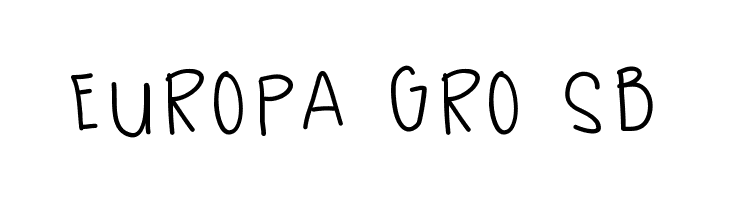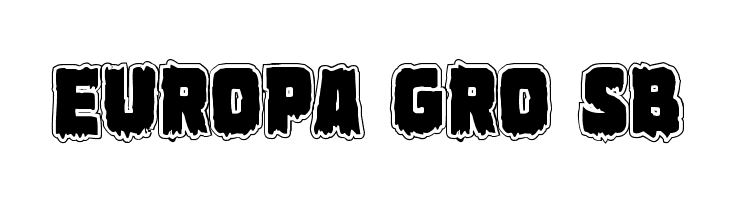
A playful, handwritten font with a whimsical and casual style.
A bold, dripping font with a spooky, Halloween-inspired style.
A bold, distressed font with a grunge, urban aesthetic.
A playful, pumpkin-themed decorative font ideal for festive designs.
A playful font with characters enclosed in pumpkin shapes, perfect for seasonal themes.
A pixelated, retro-style font with a blocky, geometric design.
A playful, handwritten font with dynamic strokes and an informal style.